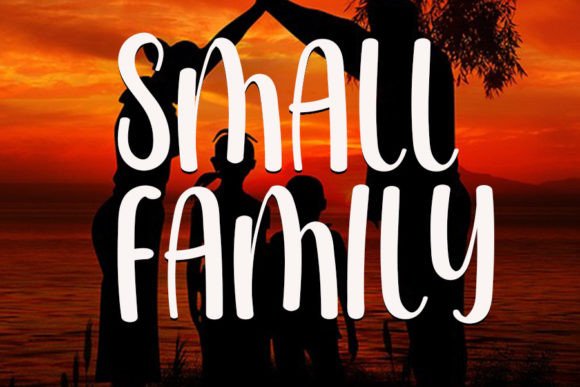
Prepare yourself to be mesmerized by the graceful charm of Small Family Font, a mesmerizing script font that will transform your designs into captivating masterpieces. Let the world fall in love with your exquisite creations adorned with the beauty of Small Family.
Step into a world of elegance and creativity, where every letter dances with an unmatched charm, captivating the hearts of both the reader and the beholder. Small Family Font is not just a font; it's an expression of your refined taste and an invitation to explore the realm of exceptional design.
Designed with love and attention to detail, Small Family Font is the perfect choice for T-shirt design, adding a touch of sophistication and uniqueness to your creations. Dive into the realm of unlimited possibilities and let your imagination soar as you craft designs that speak volumes.
With Small Family Font as your creative companion, your T-shirts will become more than just clothing; they'll become statements of individuality and style. Elevate your designs to new heights, leaving an unforgettable impact on those who encounter them.
Unleash the power of Small Family Font and witness the transformation of your designs. From the moment your creations meet the eyes of your audience, they'll be captivated by the allure of Small Family's intricate details and timeless elegance.
Don't settle for ordinary fonts. Embrace the beauty, grace, and timeless appeal of Small Family Font. It's more than just a font; it's an investment in your creativity, promising to elevate your designs to remarkable new dimensions.